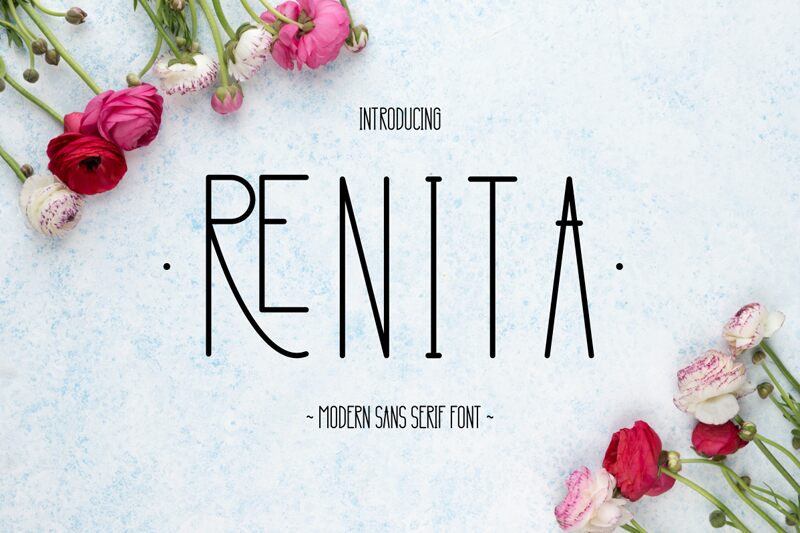
Renita Italic font by Lovian JK is light, condensed, and geometric. This sans serif professional typeface combines the formal structures of geometry with a minimalist aesthetic and elegant sophistication. Some letters connect, others don’t which results in beautiful wavy lines that not only affect the surface but also the vertical dimension of the text by giving it depth.
Visualize your logos and headlines using this free light font or enjoy it on product packaging as well as label designs. Posters and business cards are great options while small merchandise items make cool picks too! For editorial use; Renita Italic looks stunning in magazines whether for covers or to decorate some paragraphs!